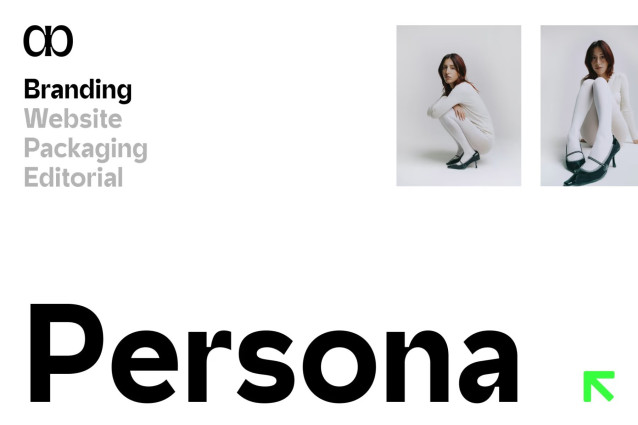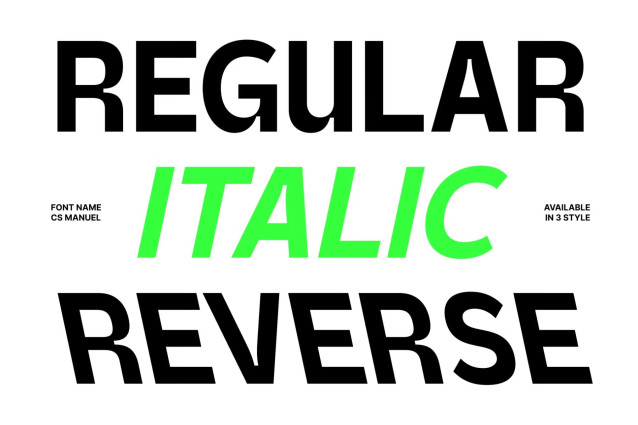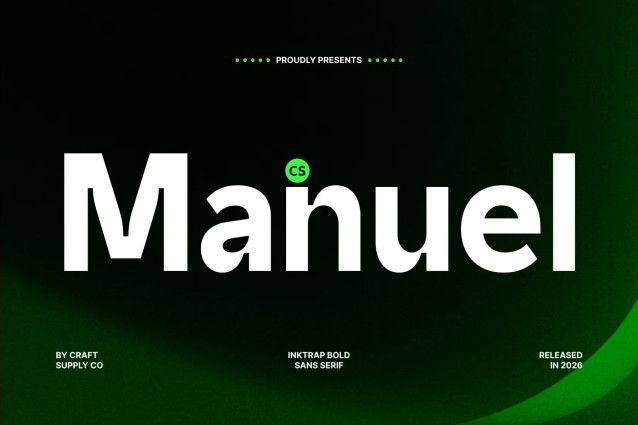
CS Manuel – Inktrap Font
CS Manuel – Bold Sans Serif Font: Where Geometric Precision Meets Industrial Strength
Sharp Inktrap Cuts with Geometric Structure
This is a bold sans serif font designed with sharp inktrap cuts and clean geometric structures that combine striking visual character with optical precision. Its bold proportions and carefully engineered details create typography that is both highly legible and visually distinctive, offering a refined balance between functionality and expressive design.
Contemporary Industrial Aesthetic
This font delivers a clean, industrial-inspired appearance that feels confident, professional, and forward-thinking. The inktrap details not only enhance its unique personality but also improve clarity at various sizes, making it an excellent choice for impactful display typography and sophisticated branding systems.
Powerful Typography with Professional Versatility
By combining bold construction with precise geometric forms, that creates a versatile visual identity that communicates strength, innovation, and reliability. Its contemporary design adapts seamlessly across print and digital media, providing a commanding presence while maintaining exceptional readability and balance.